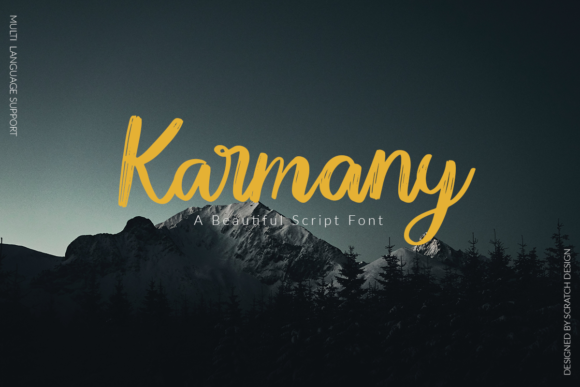
Step into the world of captivating content creation with Karmany Font, the ultimate handwritten typeface designed to set your videos ablaze on YouTube. Crafted by the renowned Scratch Design, Karmany is a symphony of elegance and charm, a font that breathes life into your words.
Indulge in the allure of Karmany's strokes, each one meticulously etched to evoke a sense of authenticity and warmth. Its distinctive style dances across the screen, captivating audiences with its subtle nuances and undeniable charm. Whether you're a seasoned YouTuber or just starting your journey, Karmany is the secret weapon you need to elevate your videos to new heights of engagement and impact.
Beyond its undeniable beauty, Karmany is a font of versatility, adapting seamlessly to a myriad of video genres and styles. Whether you're creating engaging tutorials, captivating vlogs, or mesmerizing cinematic masterpieces, Karmany has the power to transform your words into unforgettable visual experiences.
With its bold and charismatic presence, Karmany commands attention, inviting viewers to immerse themselves in the depths of your message. It's a font that speaks volumes, stirring emotions and leaving a lasting impression on every viewer who encounters it.
But Karmany is more than just a font; it's a catalyst for creativity. Its unique charm inspires you to think outside the box, to explore new storytelling techniques, and to captivate your audience in ways you never thought possible.
Join the ranks of YouTube's most captivating creators and embrace the power of Karmany Font today. Let your videos radiate with personality, passion, and an irresistible charm that will leave your viewers spellbound.